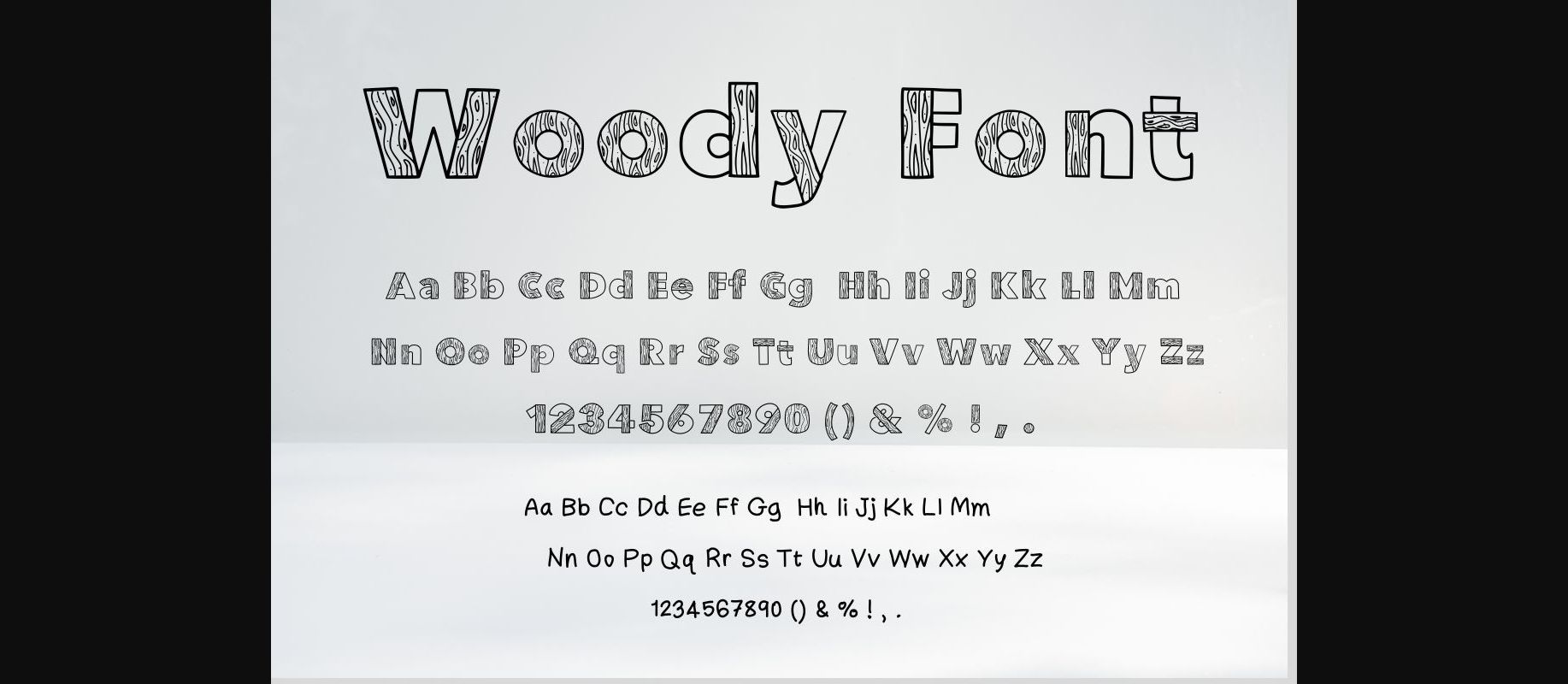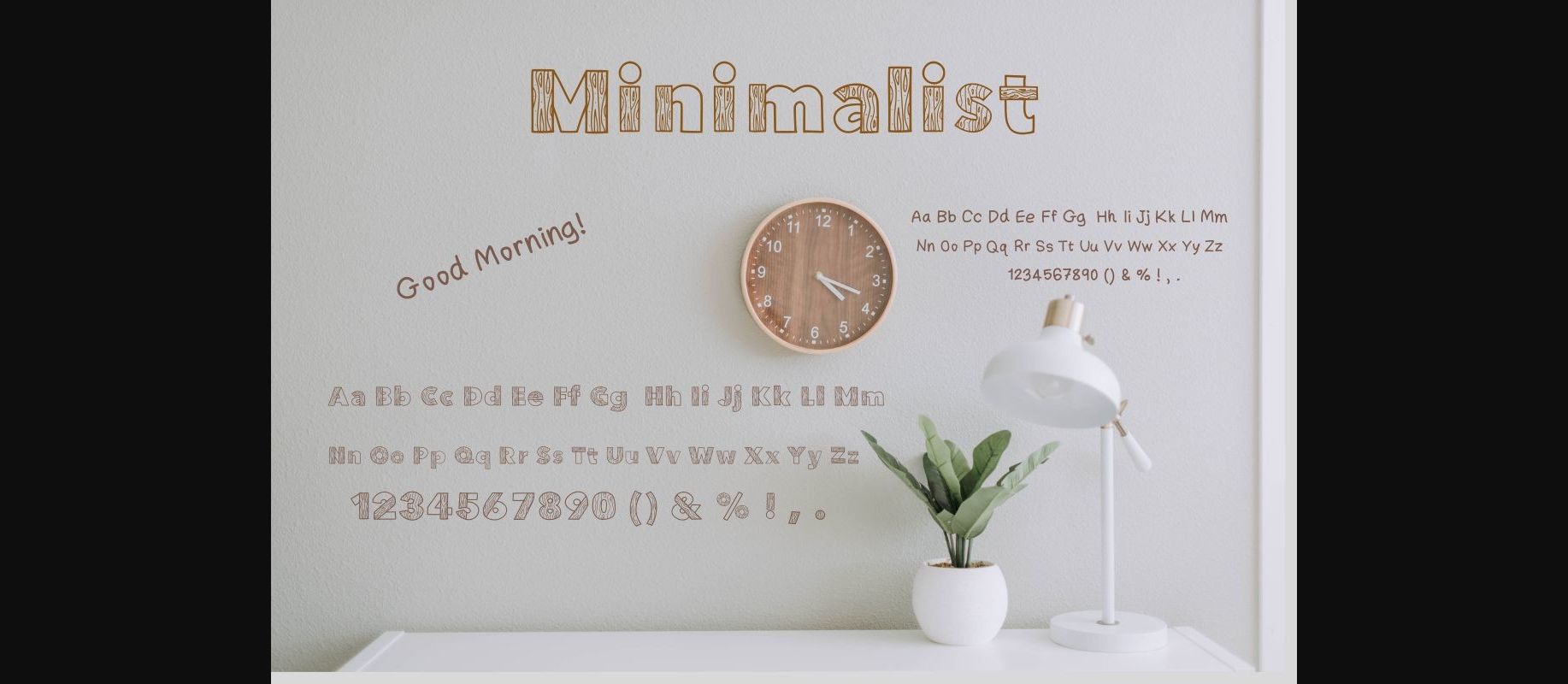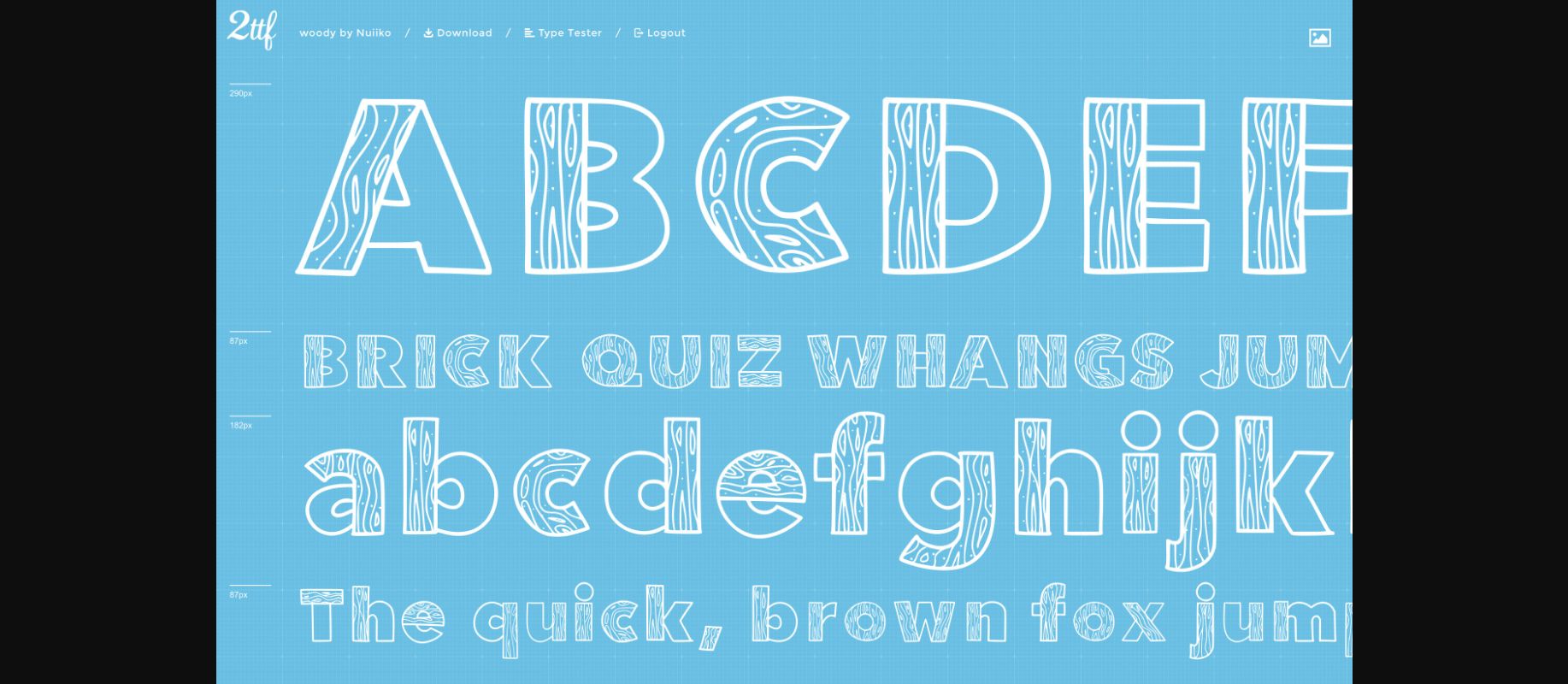
About Woody Font
Woody captures the rustic and natural beauty of wood in its letterforms. The font creates a sense of warmth and authenticity as if the letters were carved into the surface of a wooden plank.
The font is versatile and can be used for a variety of purposes, particularly when a touch of organic charm and earthy aesthetics is desired. It adds a unique and rustic element to logos, signage, packaging, and other creative projects, evoking a sense of nature and craftsmanship.
Whether used for nature-inspired designs, eco-friendly branding or to add a touch of warmth and texture to any visual composition, the wood-like design font offers a distinctive and memorable style. Its ability to infuse a sense of natural beauty and authenticity makes it a valuable addition to any font collection.
The font is versatile and can be used for a variety of purposes, particularly when a touch of organic charm and earthy aesthetics is desired. It adds a unique and rustic element to logos, signage, packaging, and other creative projects, evoking a sense of nature and craftsmanship.
Whether used for nature-inspired designs, eco-friendly branding or to add a touch of warmth and texture to any visual composition, the wood-like design font offers a distinctive and memorable style. Its ability to infuse a sense of natural beauty and authenticity makes it a valuable addition to any font collection.